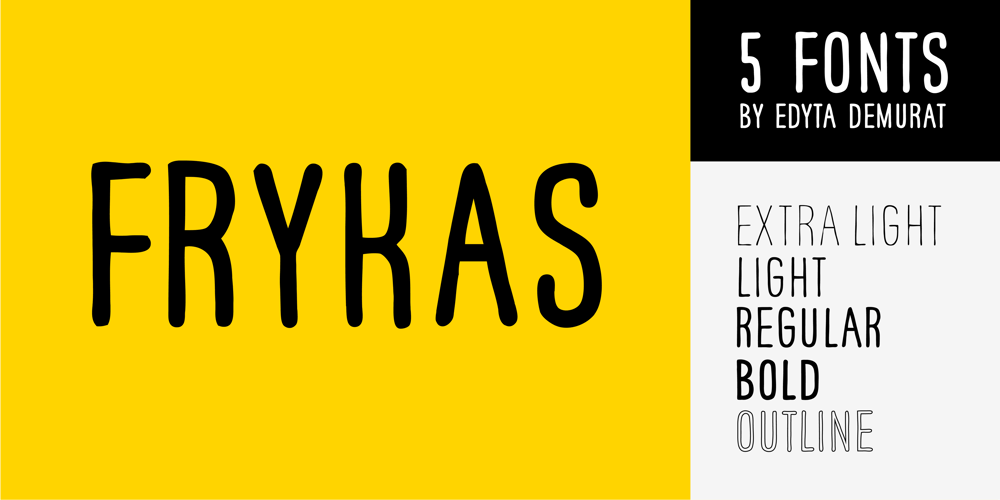
Frykas Font Family was designed by Edyta Demurat and published by Edyta Demurat. Frykas contains 5 styles and family package options. Frykas is warm and friendly, hand-drawn font. It has a simple form with subtle irregularities, but no swashes or ornaments. This condensed font family with five styles will be a great solution for posters, titles, short sentences or whenever you need impact.